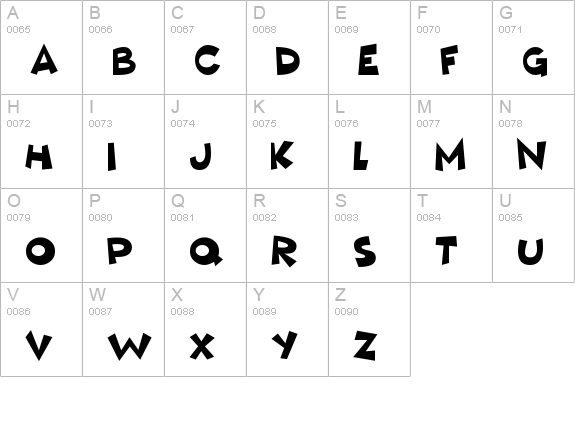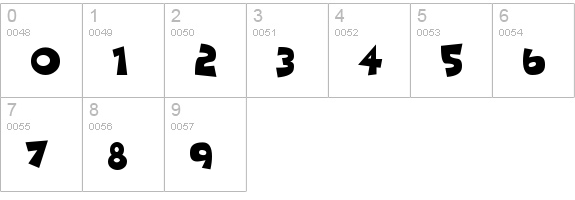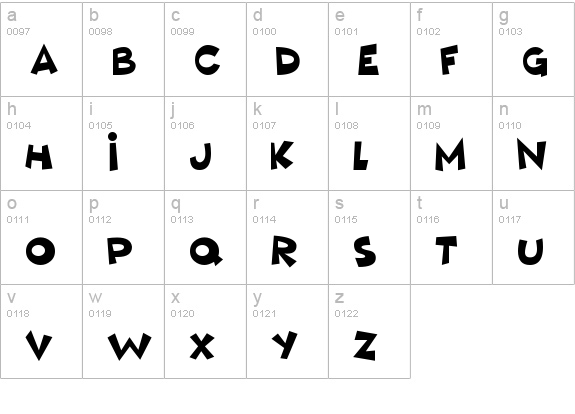
Mushy Love Font Details
Mushy Love is a free for personal use font in the Fancy > Comic category, designed by Darrell Flood. It has been downloaded 73 times and is available for Windows, Mac and Linux.
Introducing Mushy Love font, a charming and whimsical typeface that exudes warmth and affection. This delightful font features soft curves and playful accents, perfect for adding a touch of sweetness to your designs. Mushy Love font is ideal for creating romantic greeting cards, love notes, wedding invitations, or any project that requires a touch of love and tenderness.